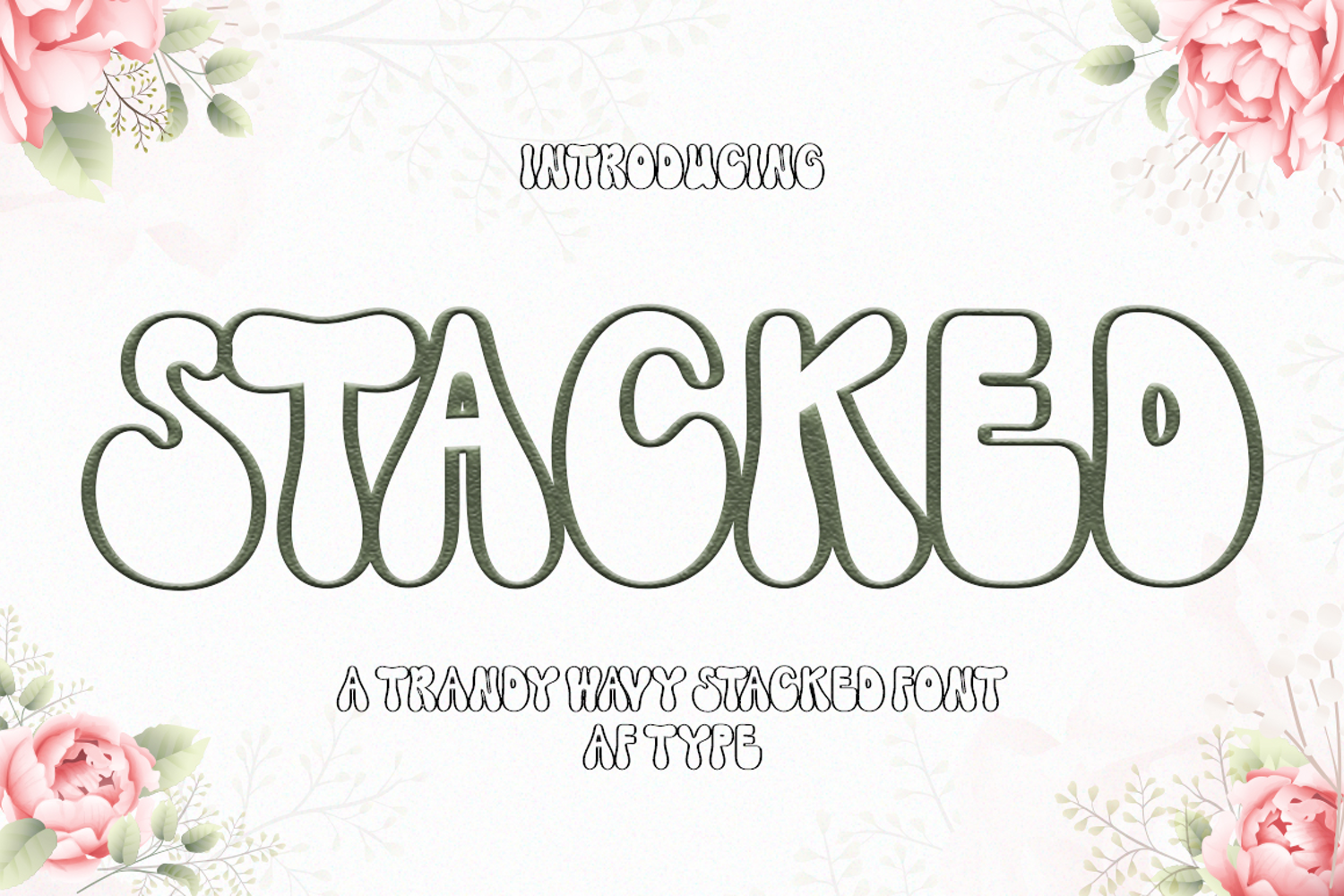
Stacked
STACKED
Stacked is a fun, retro display font with lots of complementary dingbats.
The best tool if you want to create t-shirt designs, mug designs, or just experiment.